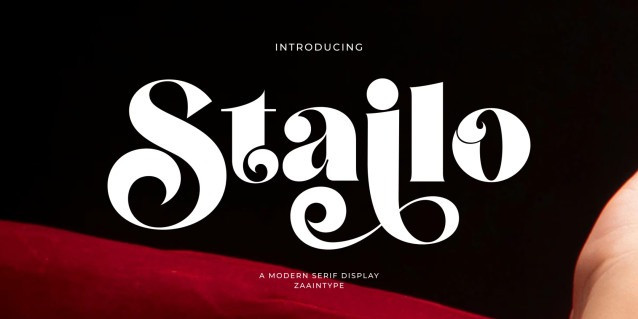
Stailo Font
Stailo Font by Zaain Type 9,957 downloads
Stailo Font
Stailo Font is a modern serif font with sharp contrast and short, clean serifs. Elegant, confident, and stylish — perfect for fashion branding, luxury editorials, and packaging design that demands attention. Available in two expressive styles: Regular and Oblique